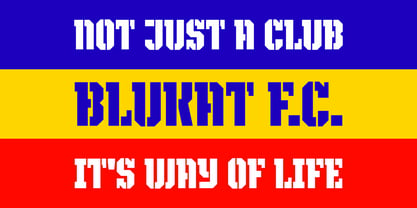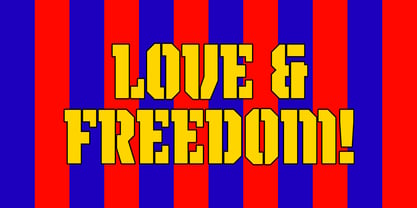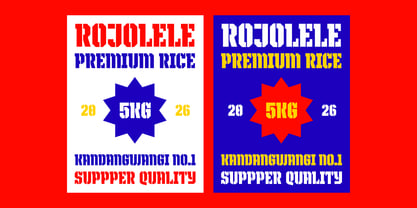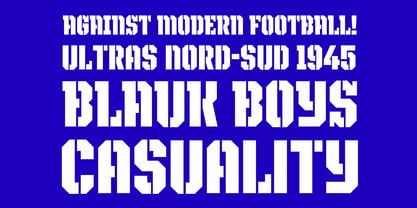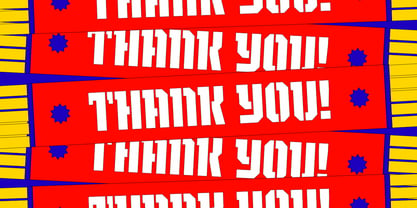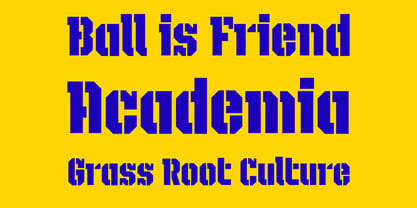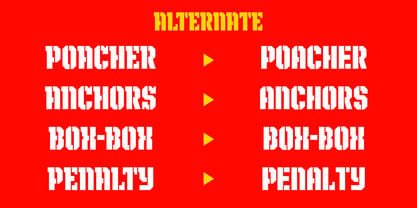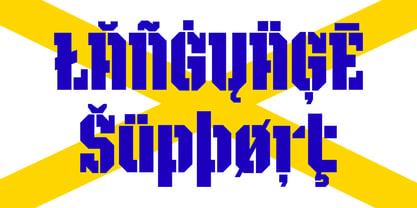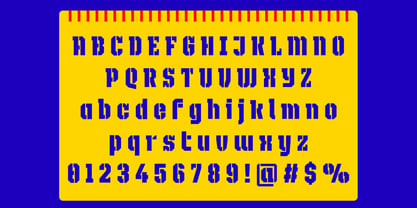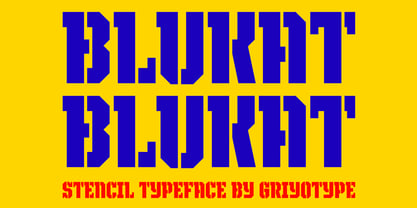
Blukat
by Griyotype
The Blukat Font Family was designed by Aprian Sembada and published by Griyotype. Blukat contains 1 styles. More about this family
Blukat is a bold stencil display typeface characterized by strong geometric letterforms and distinctive stencil cuts, exuding a powerful athletic aesthetic. Crafted for high-impact display typography, Blukat merges rugged stencil construction with inspirations from sports graphics, collegiate lettering, vintage athletics, and modern streetwear. Its bold forms shine at large sizes, making it ideal for headlines, logos, posters, apparel, team graphics, merchandise, and branding. This versatile typeface is perfect for creating eye-catching designs that demand attention and convey a sense of strength and energy.
Designers: Aprian Sembada
Foundry: Griyotype